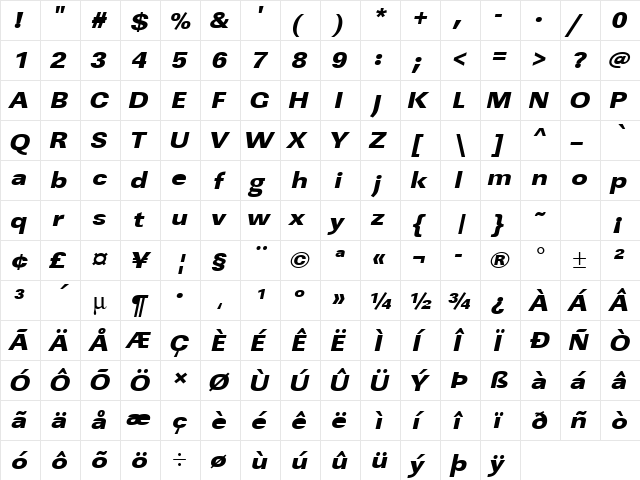
URWLinearTUltBolExtWid Oblique
Design Context for URWLinearTUltBolExtWid Typeface
URWLinearTUltBolExtWid offers clean, dependable letterforms without strong stylistic allegiance, making it a practical choice for designers who need flexibility. The slanted form adds forward momentum and visual energy.
Pro Tip: Use URWLinearTUltBolExtWid for emphasis, pull quotes, and subheadings where its slanted energy can add rhythm to the layout.